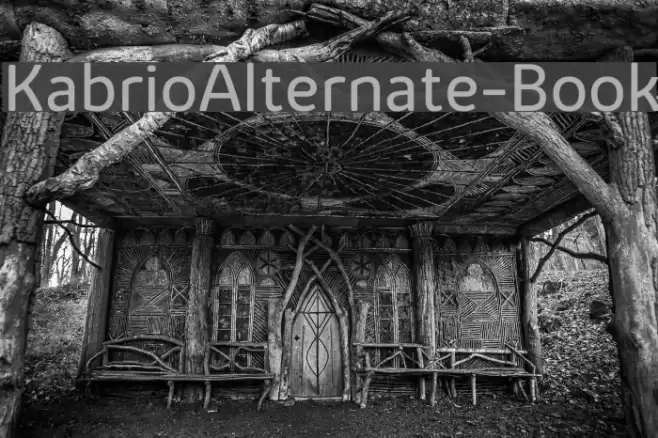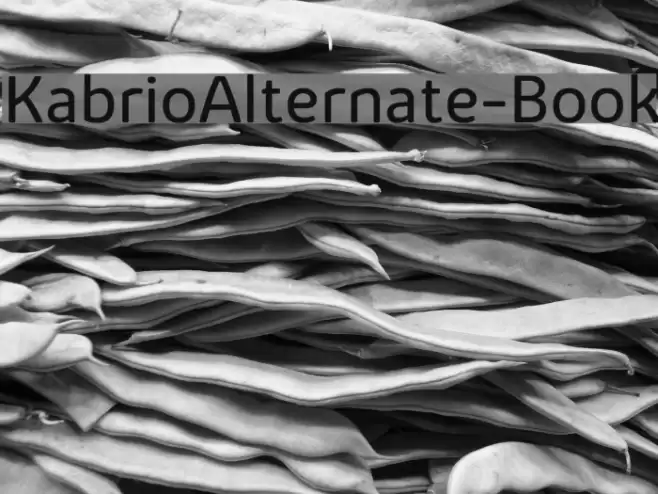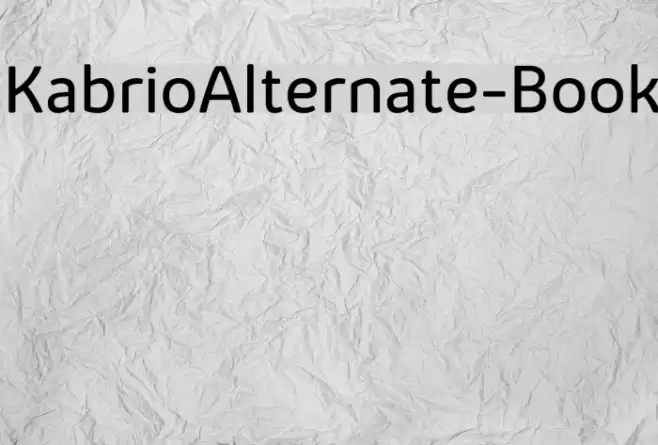
KabrioAlternate-Book Font
KabrioAlternate-Book Description
This font features a clean and modern sans-serif design, characterized by smooth curves and a balanced structure. The uppercase letters are bold and assertive, while the lowercase letters maintain a friendly and approachable appearance. The numerals are clear and easy to read, making them suitable for a variety of applications. Special characters are well-integrated, ensuring consistency throughout the typeface. The overall design is versatile, making it suitable for both digital and print media.
A modern sans-serif font with smooth curves and balanced structure from Uncategorized fonts.
- Proposed Projects: Ideal for branding, web design, editorial layouts, and advertising campaigns.